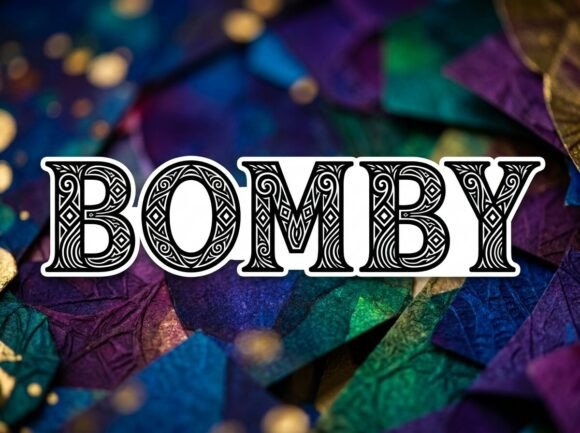
Unleash the Mystique: Discover the Enchanting Bomby Font
In the realm of typography, few fonts manage to capture the essence of mysticism and modern bohemian flair as effortlessly as Bomby. This mesmerizing display typeface is designed to transport your audience to a world where ancient talismanic engravings meet contemporary artisanal aesthetics. With its bold, blocky letterforms and intricate patterns, Bomby is poised to become the premier choice for designers and crafters seeking to infuse their projects with a touch of the divine.
The Unique Charm of Bomby
Bomby’s distinctive character lies in its rhythmic, hand-drawn patterns that are woven directly into the body of each letterform. Geometric diamonds and swirling organic filigree elements blend seamlessly with the bold, blocky structure of the font, creating a truly unique visual experience. This fusion of ancient and modern design elements allows Bomby to bridge the gap between traditional mystical symbols and modern bohemian branding.
Applications for Designers and Crafters
Bomby’s versatility makes it an excellent choice for a wide range of applications, from independent artisanal candle packaging to spiritual wellness identities, boutique jewelry labels, and high-impact social media headers. Whether you’re looking to add a touch of mystique to your product labels, create a captivating brand identity, or simply elevate your social media presence, Bomby is the perfect font to help you achieve your goals.
Key Features of Bomby
- Bold and Blocky Letterforms: Bomby’s robust letterforms are designed to make a statement, providing a solid foundation for your designs.
- Intricate Patterns: The font’s hand-drawn patterns, including geometric diamonds and swirling organic filigree, add a level of depth and visual interest to each character.
- Mystical and Mosaic Soul: Bomby’s unique blend of ancient and modern design elements gives it a distinctly mystical and mosaic feel, perfect for projects that require a touch of the divine.
- Hand-Drawn Details: Each character in the Bomby font is carefully crafted with hand-drawn details, ensuring a level of authenticity and craftsmanship that is hard to find in digital fonts.
Why Choose Bomby?
In a world where typography plays a crucial role in shaping brand identities and visual experiences, Bomby stands out as a truly unique and captivating font. Its blend of ancient and modern design elements, combined with its bold and blocky letterforms, make it the perfect choice for designers and crafters seeking to create something truly special.
To truly appreciate the potential of Bomby, it’s essential to see it in action. Here are a few ideas to get you started:
- Artisanal Candle Packaging: Use Bomby to create eye-catching labels for your artisanal candles, adding a touch of mystique to your products.
- Spiritual Wellness Identities: Develop a brand identity that resonates with your audience, using Bomby’s mystical and mosaic soul to create a truly captivating visual experience.
- Boutique Jewelry Labels: Elevate your boutique jewelry brand with Bomby’s unique and intricate patterns, adding a level of sophistication and elegance to your labels.
- Social Media Headers: Make a statement on social media with Bomby’s bold and blocky letterforms, drawing attention to your brand and captivating your audience.
Bomby is more than just a font – it’s an experience. With its mesmerizing display typeface, intricate patterns, and mystical and mosaic soul, Bomby is poised to become the go-to choice for designers and crafters seeking to infuse their projects with a touch of the divine. Whether you’re looking to create artisanal candle packaging, spiritual wellness identities, boutique jewelry labels, or high-impact social media headers, Bomby is the perfect font to help you achieve your goals.
Get Ready to Enchant Your Audience
With Bomby, you have the power to create truly captivating visual experiences that will leave a lasting impression on your audience. So why wait? Discover the magic of Bomby today and unleash your creativity on the world.